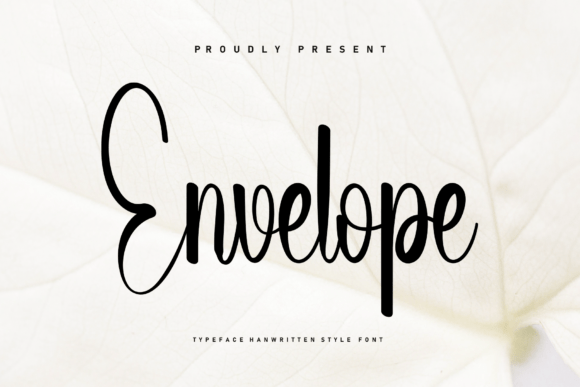
The Perfect Blend of Handwritten Charm and Design
Remember that moment when you first stumbled upon a beautiful, handwritten note in your mailbox? The one that made you feel like the sender took the time to put thought and love into every stroke of the pen? That’s exactly the feeling you’ll want to evoke with your designs, and that’s where the Envelope Font comes in.
This charming font is designed to capture the essence of handwritten perfection, with smooth strokes and organic lines that exude a relaxed atmosphere. Whether you’re working on a branding project, creating invitations, or crafting social media graphics, the Envelope Font is a valuable addition to your design toolkit.
With its unique blend of elegance and informality, the Envelope Font is sure to bring a touch of personality to your designs and leave a lasting impression on your audience.
Envelope Font Key Features
- Size: The font family includes multiple weights and styles, ranging from Thin to Extra Bold, offering flexibility for different design needs.
- Resolution: Designed for high-resolution displays, making it suitable for use in digital media and print materials.
- Unique Characteristics: Envelope Font features a distinctive, hand-drawn aesthetic with subtle imperfections, adding a touch of personality to designs.
- Kerning and Ligatures: Includes carefully crafted kerning and ligatures to ensure smooth text rendering and a professional appearance.
Envelope Font Review
At first glance, Envelope Font seems like a great addition to any designer’s toolkit. Here are some things that work well:
- ✨ Unique and creative design: The font’s envelope-inspired design is sure to stand out and add a touch of whimsy to any project.
- ✨ Versatility: Envelope Font comes in a range of weights and styles, making it easy to find the perfect fit for your design needs.
- ✨ Easy to use: The font is well-behaved and easy to work with, even for designers who are new to typography.
- ⚠️ Limited language support: Envelope Font may not be suitable for projects that require extensive language support, as it may not include all the necessary glyphs.
- ⚠️ Not ideal for body text: Due to its unique design, Envelope Font may not be the best choice for body text, as it can be difficult to read in large quantities.
Overall, Envelope Font is a fun and creative font that can add a touch of personality to your designs. While it may not be suitable for every project, it’s definitely worth considering for those that require a unique and eye-catching look.
For optimal results, use Envelope Font in conjunction with bold or italic text to create visually appealing contrasts. Experiment with different font sizes and colors to achieve the desired effect.
Envelope Font is commonly used for invitations, greeting cards, and other stationery items. It can also be used for branding and packaging designs to create a unique and memorable visual identity.
Alternatives to Envelope Font
Circular Font
Circular Font is a modern, sans-serif font that is often used in digital design and branding. It is suitable for creating clean and minimalist designs. When to use: Digital design, branding, and minimalist designs.
Comparison to Envelope Font: Circular Font is more modern and sans-serif, whereas Envelope Font has a more classic and serif feel. Circular Font is also more versatile and can be used in a wider range of designs.
Playfair Display is an elegant, high-end font that is often used in luxury branding and high-end design. It is suitable for creating sophisticated and luxurious designs. When to use: Luxury branding, high-end design, and elegant designs.
Comparison to Envelope Font: Playfair Display is more elegant and high-end, whereas Envelope Font has a more classic and versatile feel. Playfair Display is also more ornate and can be used in designs where a more luxurious feel is desired.
Lato is a clean, sans-serif font that is often used in digital design and branding. It is suitable for creating modern and minimalist designs. When to use: Digital design, branding, and minimalist designs.
Comparison to Envelope Font: Lato is more modern and sans-serif, whereas Envelope Font has a more classic and serif feel. Lato is also more versatile and can be used in a wider range of designs.
Can I customize Envelope Font to fit my specific design needs?
Yes, Envelope Font is highly customizable. The font includes a range of OpenType features that allow you to customize the font’s appearance and behavior. You can also use font editing software, such as FontLab, to modify the font’s design and create custom variants. However, be sure to check the font’s licensing terms before making any modifications.